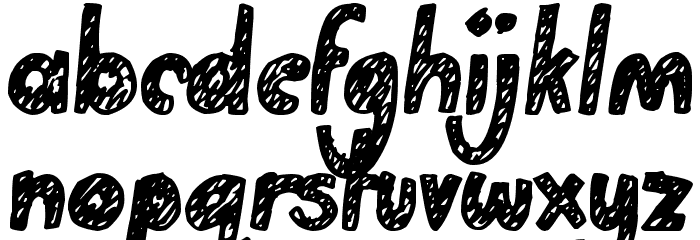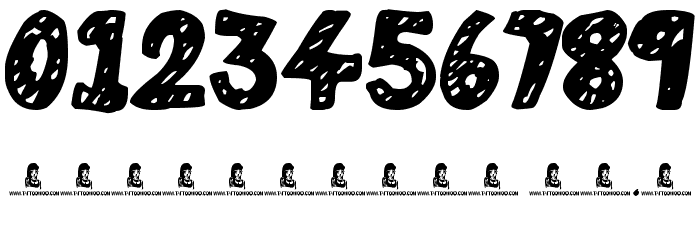
Golden Star Font
This font features a playful and bold handwritten style with a textured, scribbled appearance. Each character is filled with a pattern of diagonal lines, giving it a dynamic and energetic look. The letters are slightly irregular, enhancing the casual and informal vibe. The uppercase and lowercase letters maintain a consistent style, while the numbers and special characters follow the same design principles. This font is ideal for projects that require a fun and lively aesthetic, such as children's books, posters, or creative branding.
A bold, playful handwritten font with a textured, scribbled appearance.
- Proposed Projects: Ideal for children's books, playful posters, creative branding, and informal invitations.
- Overall Style: Playful, Energetic